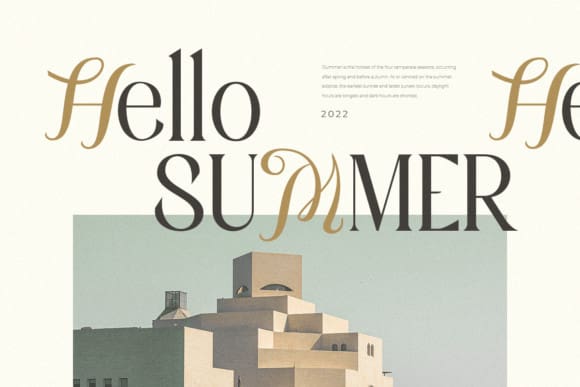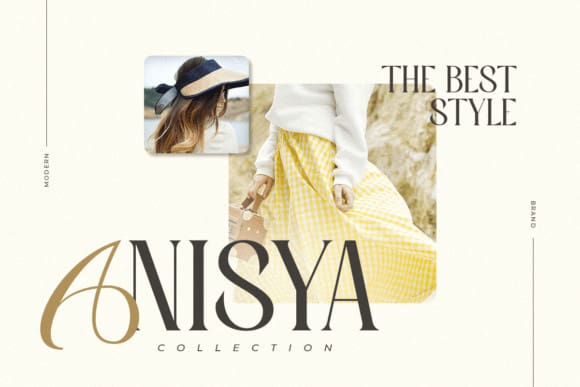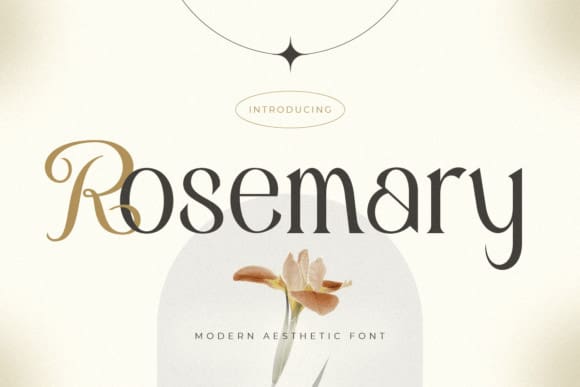
Rosemary Font
Rosemary Font, A Display font that we created special for elegant branding needs, with extra alternates in unique shape will be ready to add value of your brand. It so nice to leverage designer or product owner that need solutions to make their design look more aesthetic and modern. And specially for Rosemary font, We prepared any alternates characters to help you create unlimited variations for your creative needs.